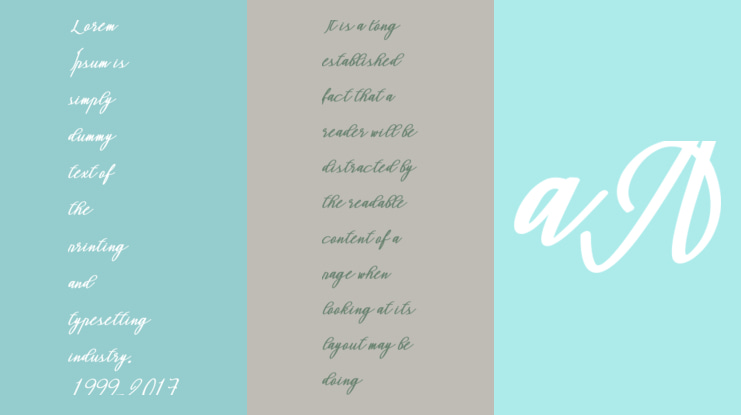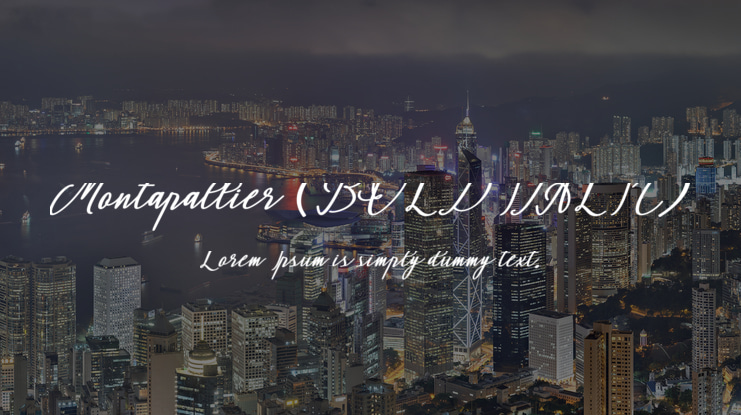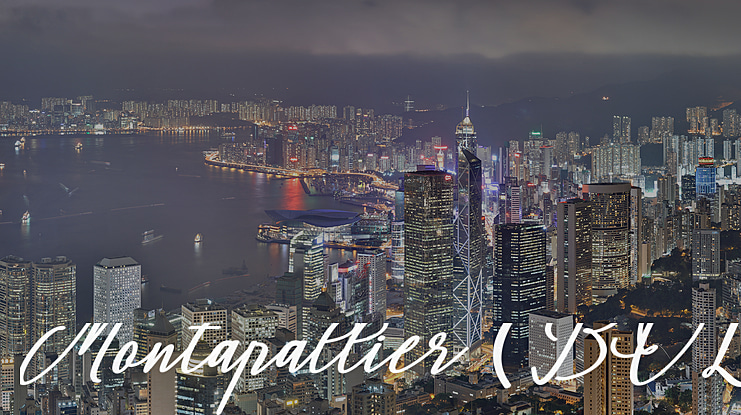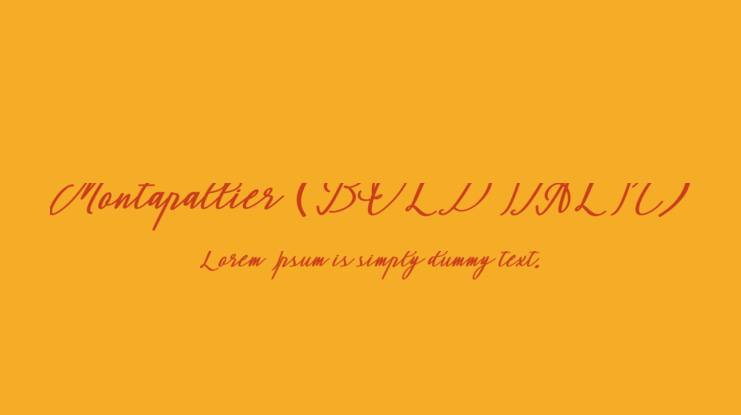
Montapallier (BOLD ITALIC) Font
introduce hello everyone! introduce my new font, Montapallier script, this font has 2 styles, italic and bold italic. This font is very suitable for amazing and product products such as: design, logo, packaging, quotes, and others